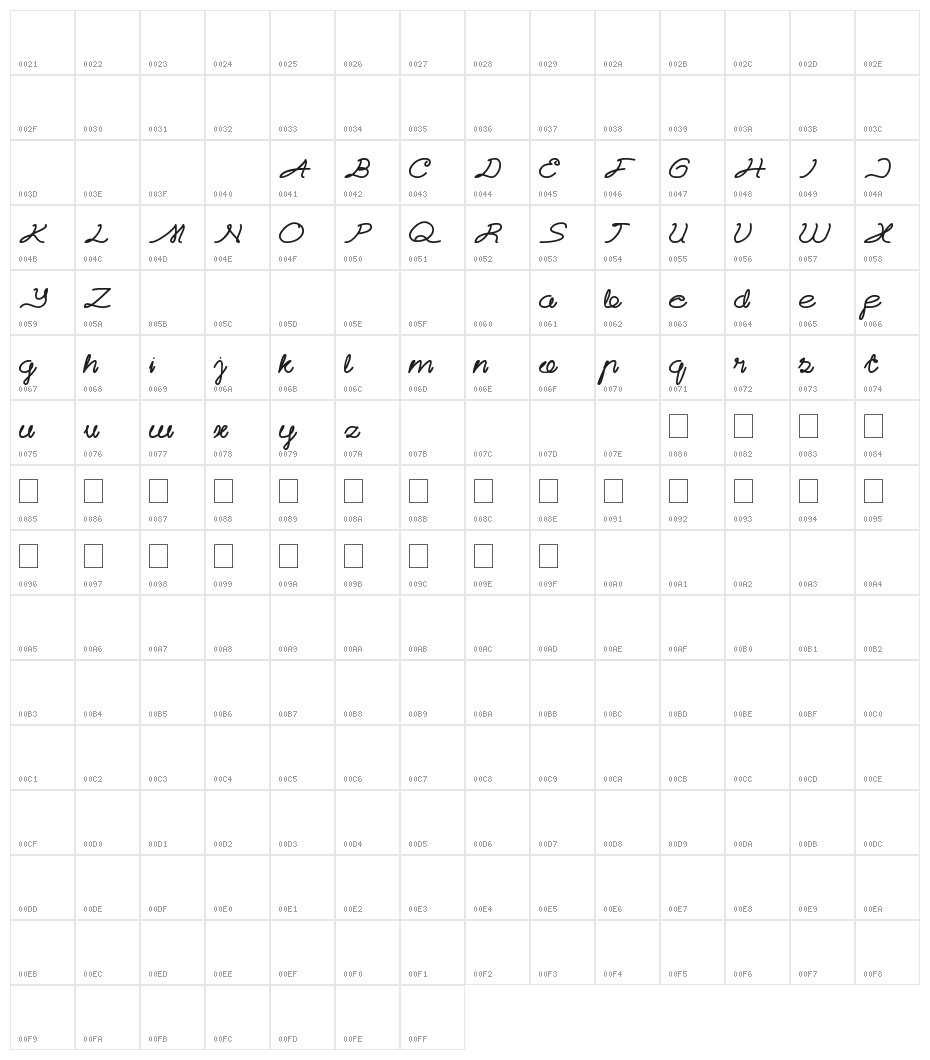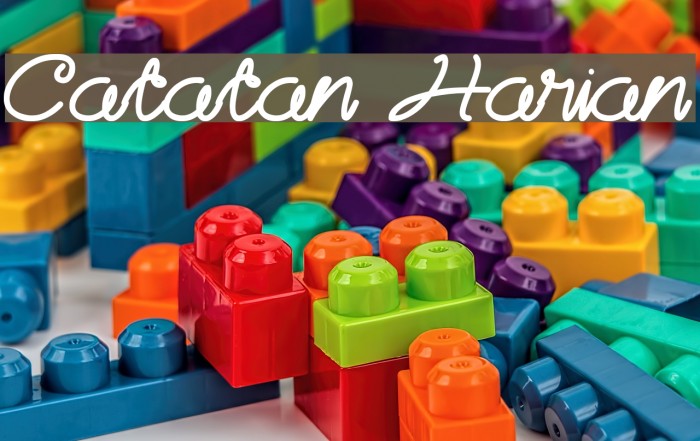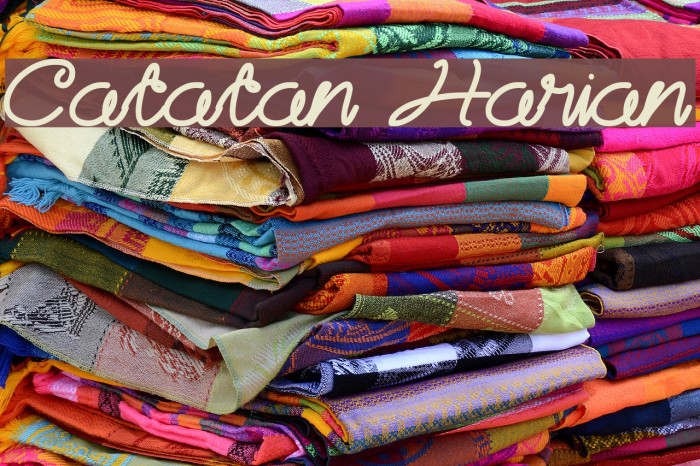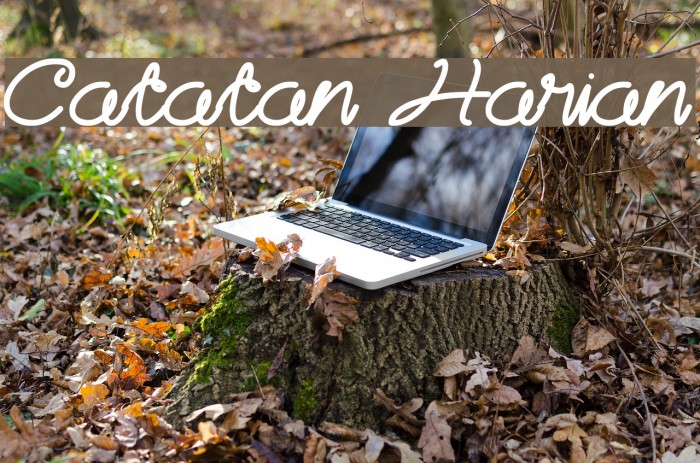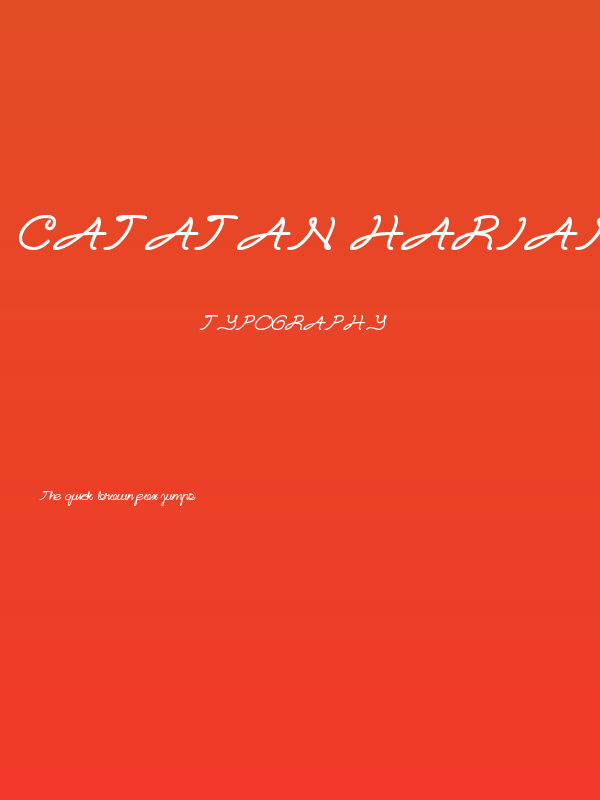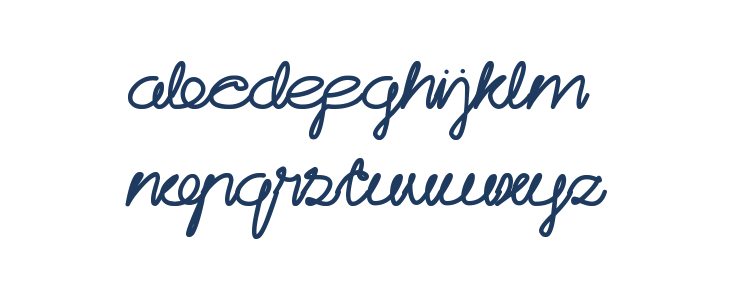
Catatan Harian Font
Catatan Harian Description
This font features a flowing, cursive style that mimics elegant handwriting. The uppercase letters are slightly more structured, maintaining a consistent baseline, while the lowercase letters exhibit a more fluid and connected form. The strokes are smooth and rounded, with a medium thickness that provides good readability. The font has a charming, personal touch, making it suitable for projects that require a humanistic and approachable feel. Its design is reminiscent of traditional calligraphy but with a modern twist, offering versatility in various design contexts.
| Proposed Projects | Ideal for wedding invitations, personal branding, greeting cards, and elegant packaging designs. |